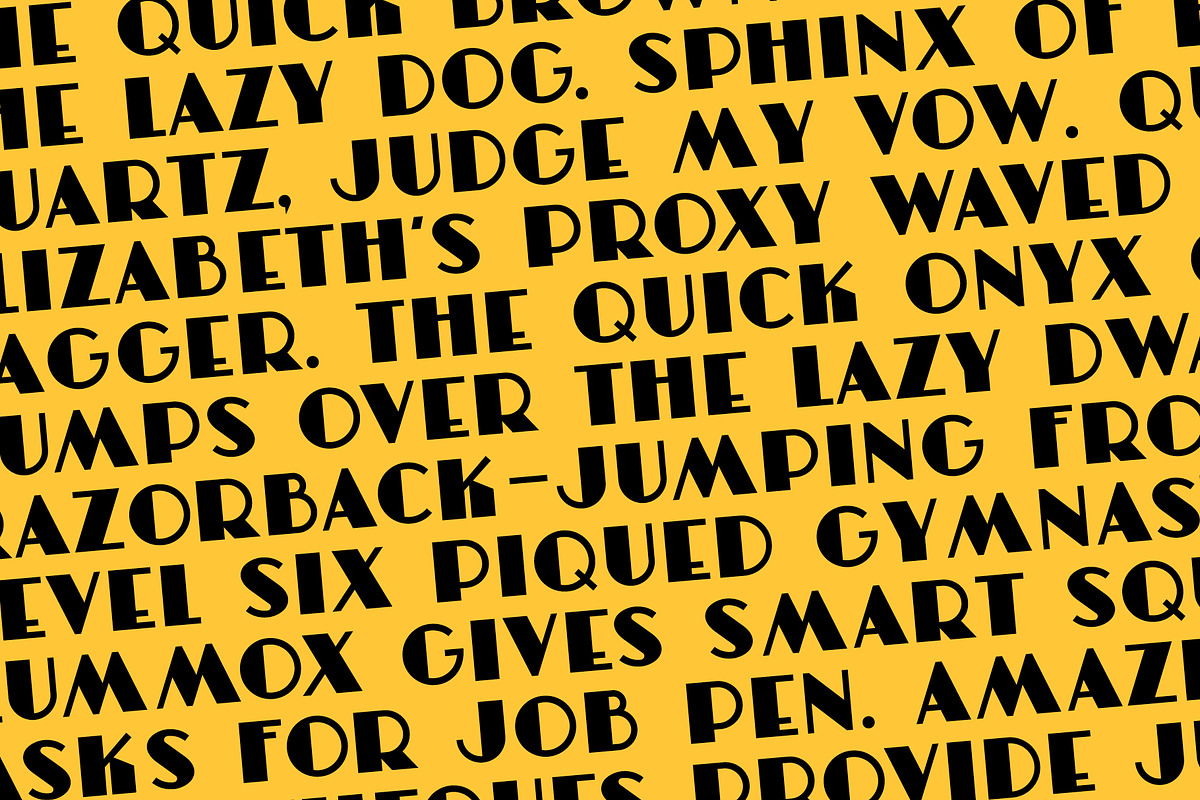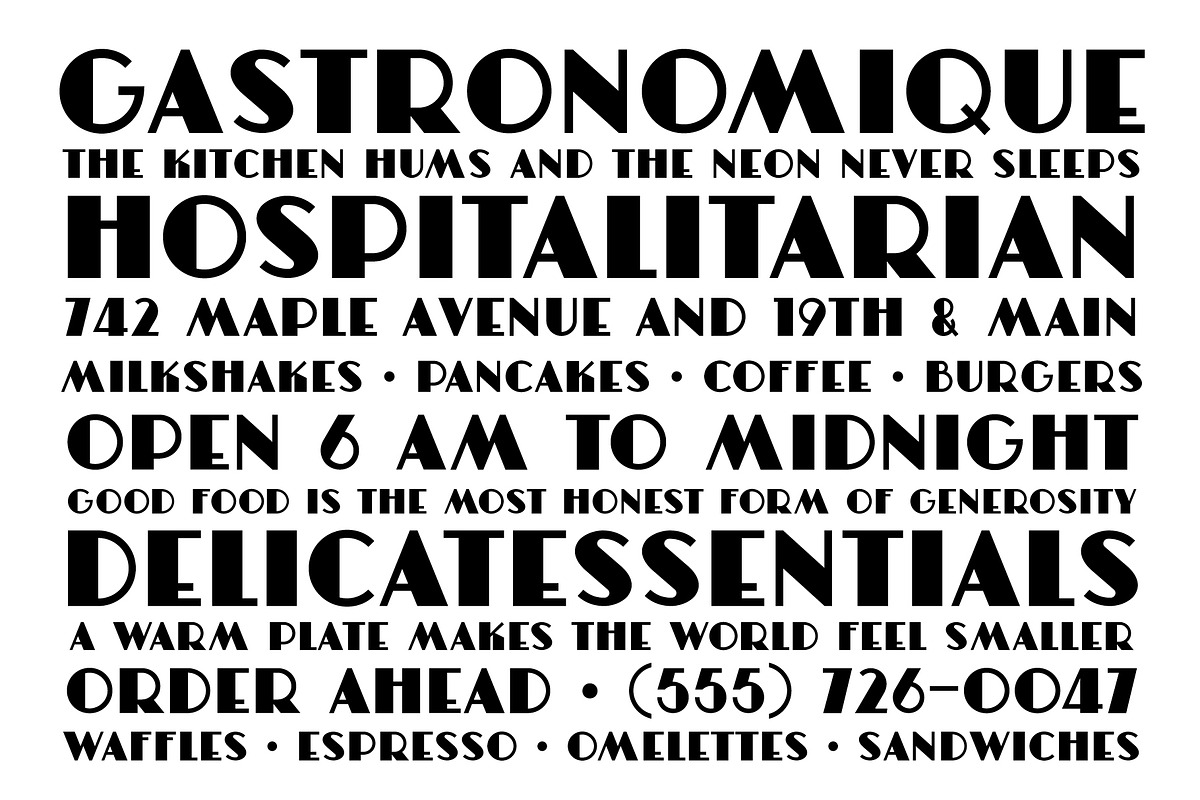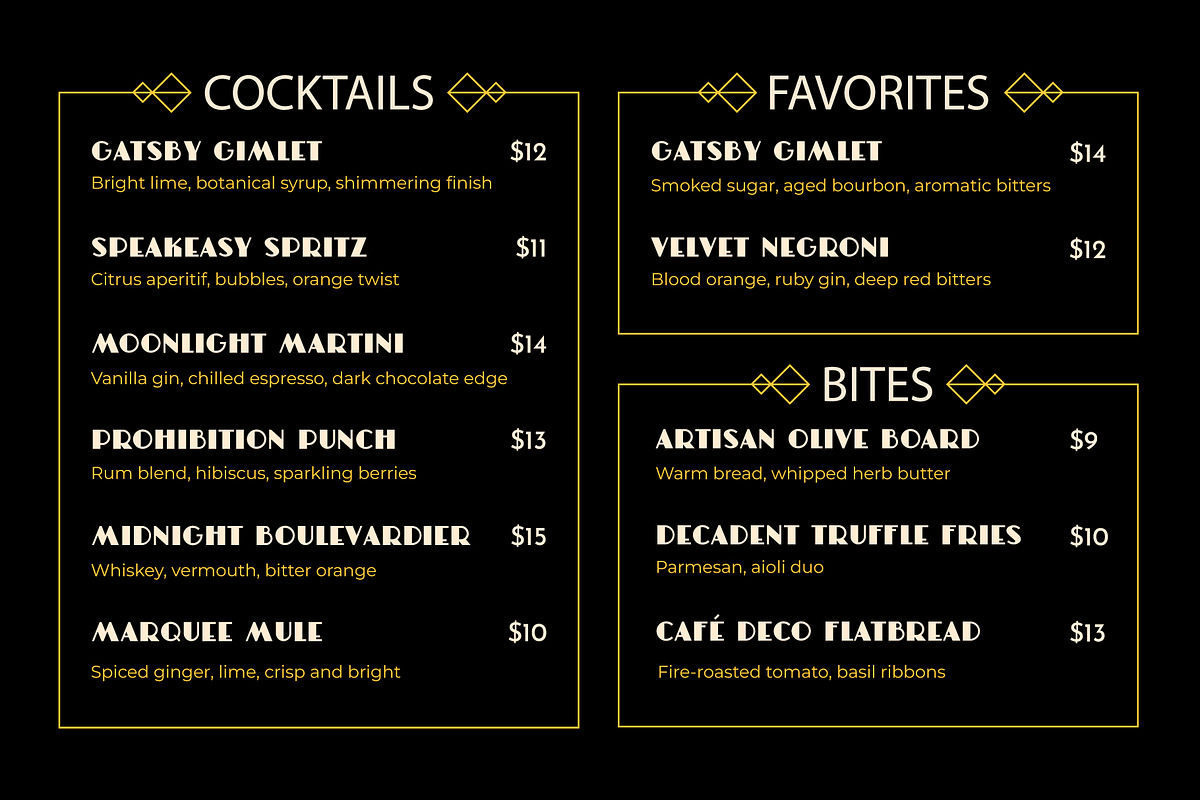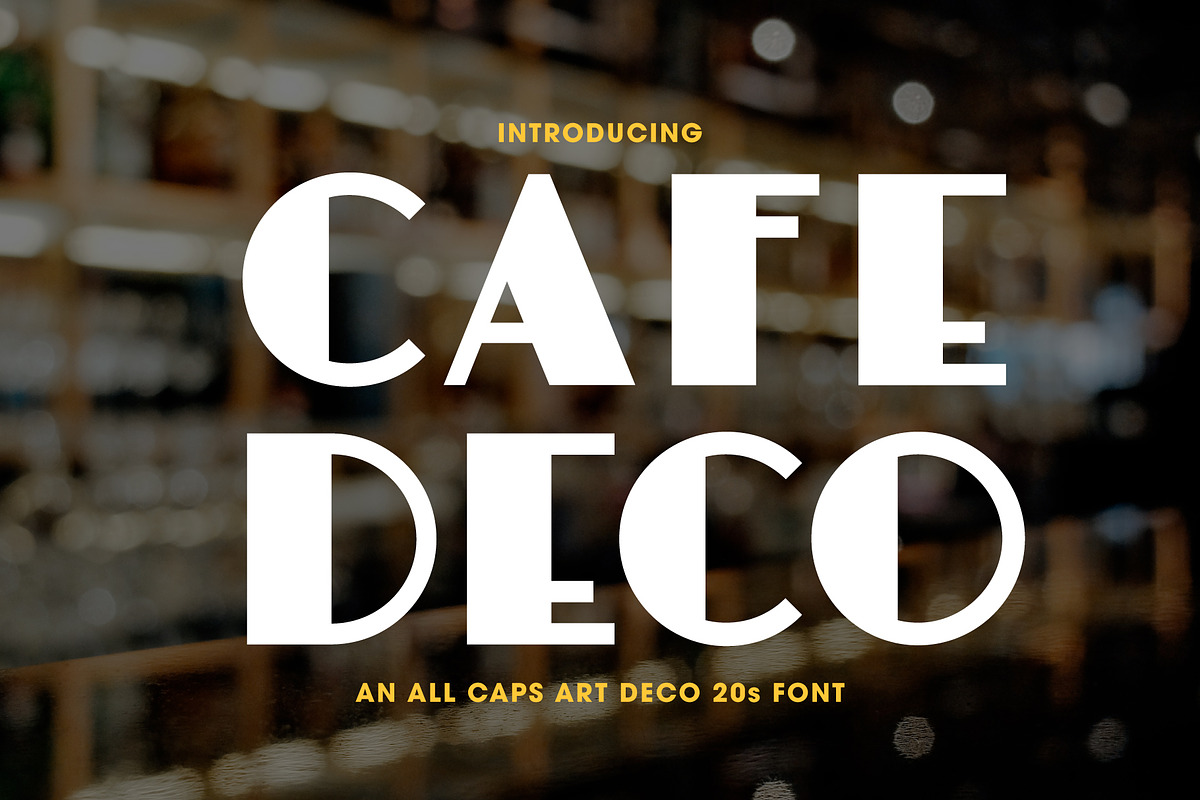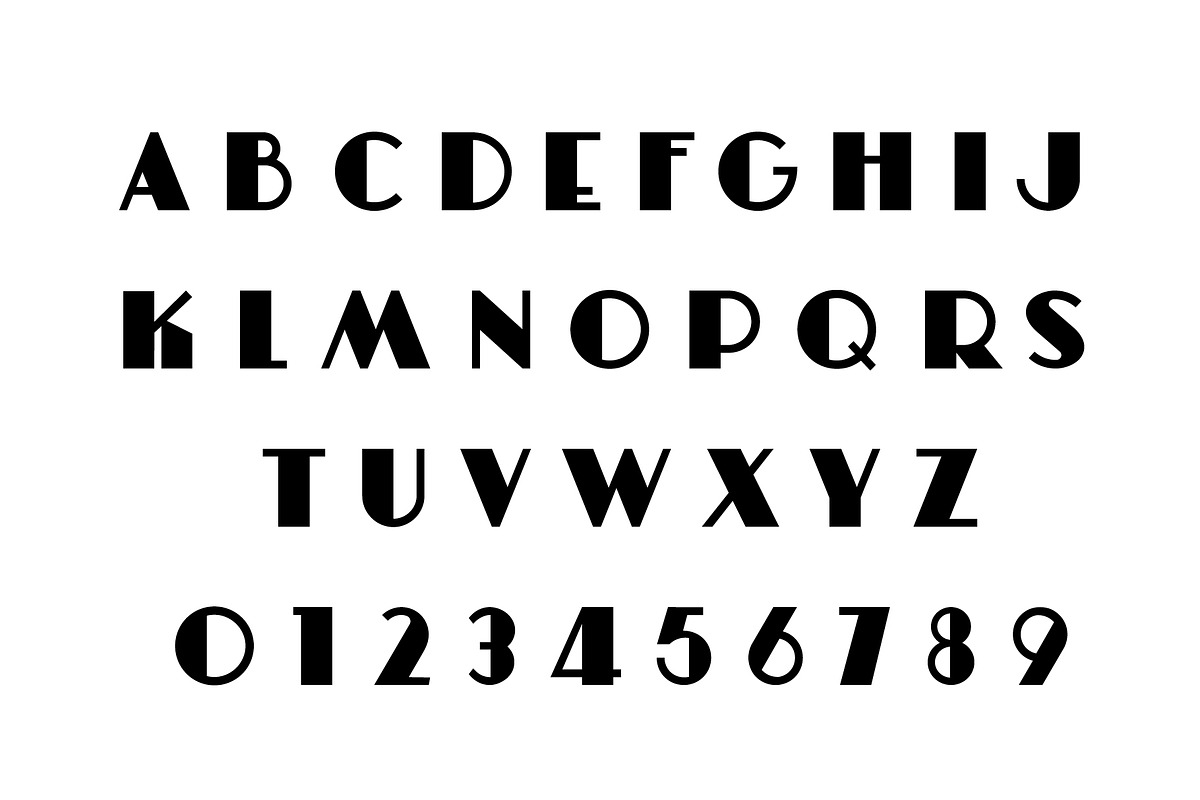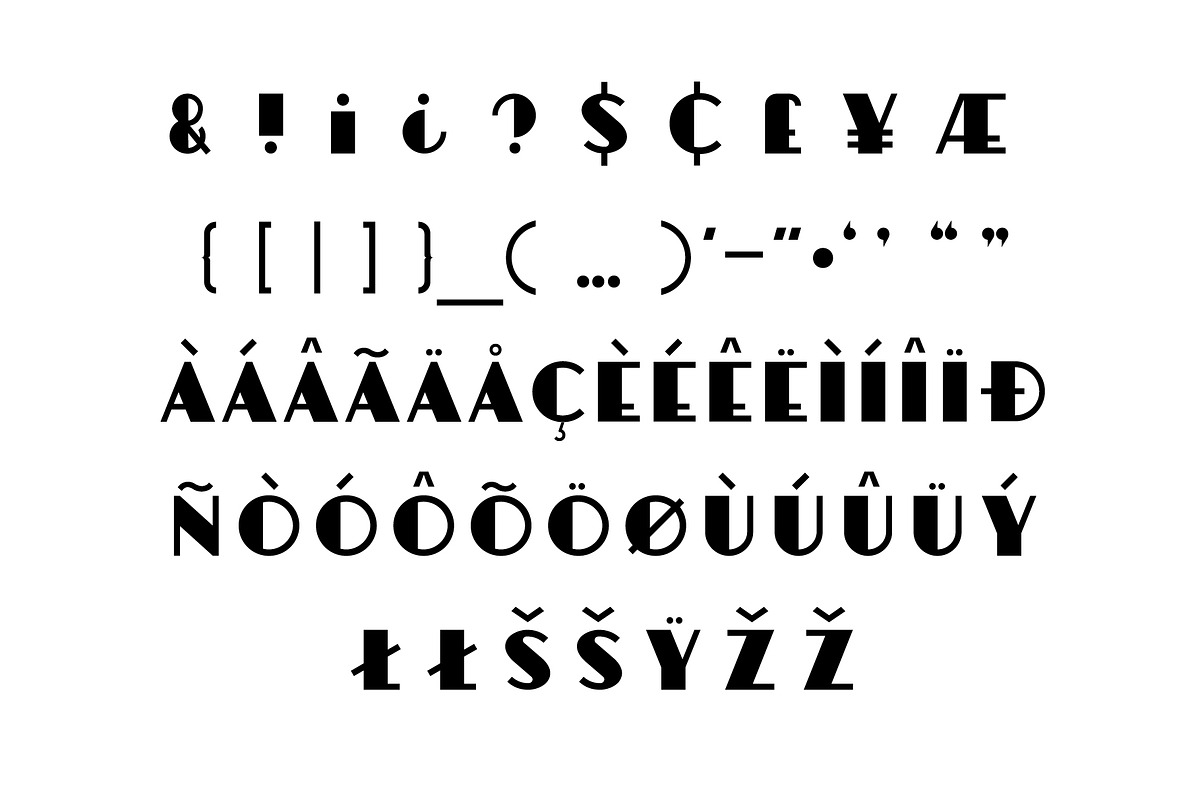
Cafe Deco
Step into the golden age of glimmering marquees, velvet lounges, and late-night cocktails with Cafe Deco — a bold, geometric Art Deco typeface inspired by the elegance and charm of the 1920s. With striking angles, circular cuts, and stylish contrast, this all-caps display font brings vintage sophistication to modern design.
Perfect for menus, signage, branding, logos, packaging, invitations, speakeasy themes, boutique identities, restaurant aesthetics, and anything that calls for a touch of refined nostalgia.
Why You’ll Love It
- Strong Art Deco personality
- All caps alphabet with unique letterforms
- Sharp geometry paired with soft curves
- Timeless vintage flair with modern usability
- Ideal for bold headlines and stylized text layouts
Great For
- Cocktail & café menus
- Boutique branding and packaging
- Restaurant and hospitality design
- Event posters and invitations
- Retro editorial layouts
- Signage, labels, merch, and décor
Styling Notes
Pair with minimalist sans-serifs, metallic foils, black + gold palettes, textured papers, and cinematic photography for maximum Gatsby-era atmosphere.
Bring a dash of decadence and a toast of typography to your next project with Cafe Deco.